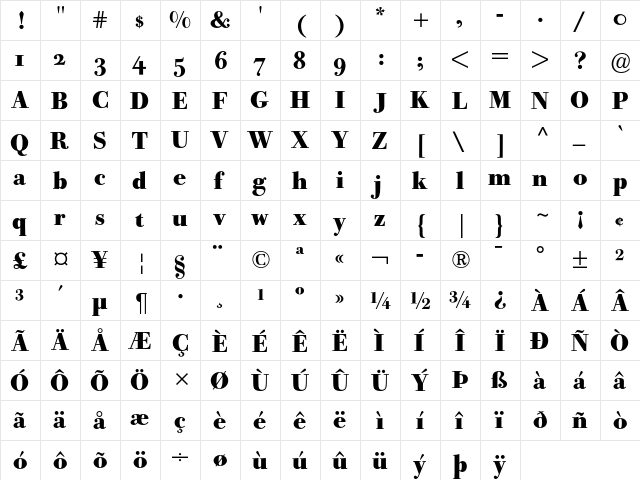
Bodoni Old Face BE Bold OsF
Design Context for Bodoni Old Face BE Typeface
Bodoni Old Face BE is a composed and adaptable typeface that performs quietly and consistently across a wide range of design contexts. The heavy weight commands attention and anchors typographic hierarchies.
Pro Tip: Use Bodoni Old Face BE in both headline and body roles to test its range before committing to a single application.